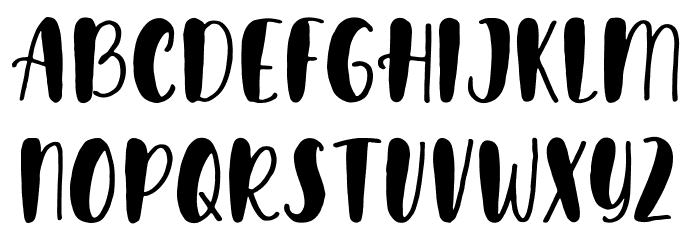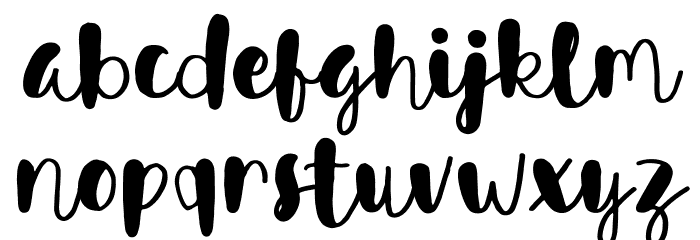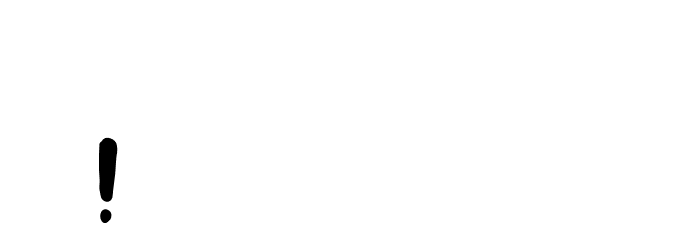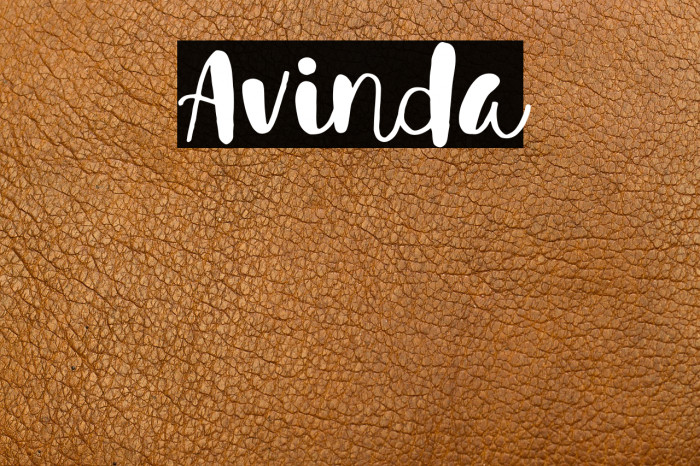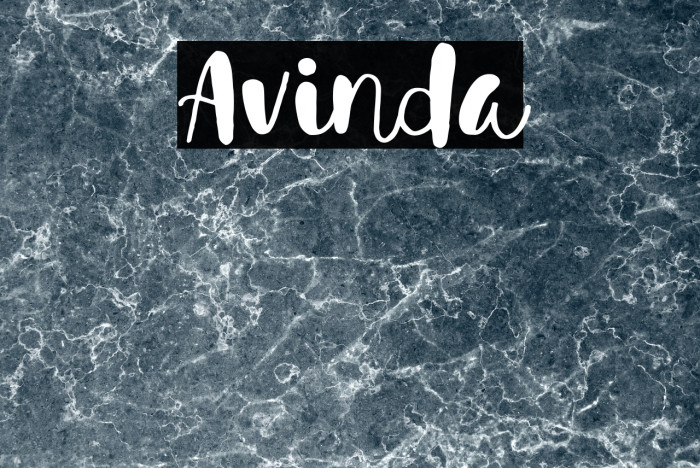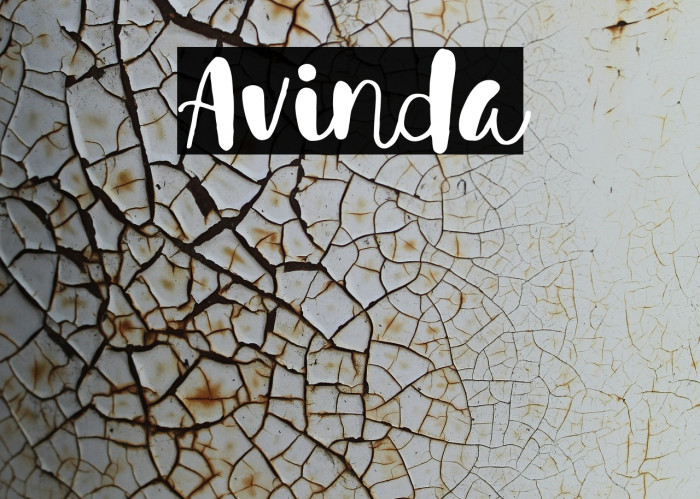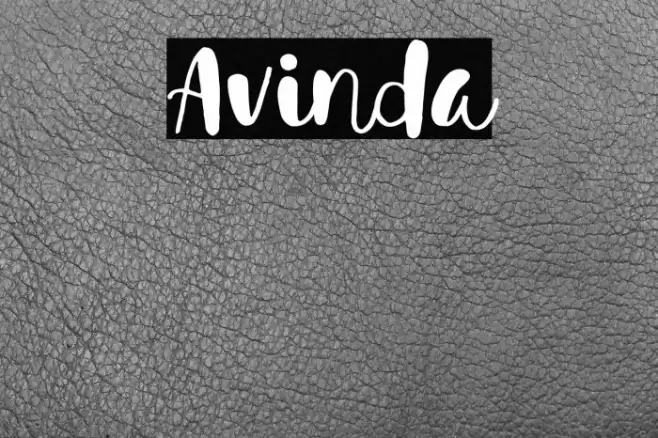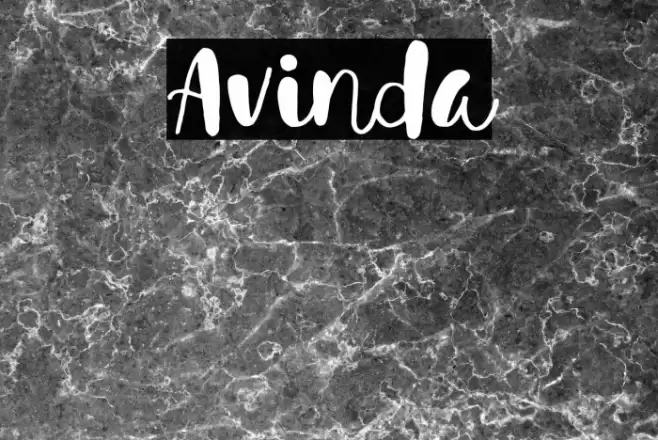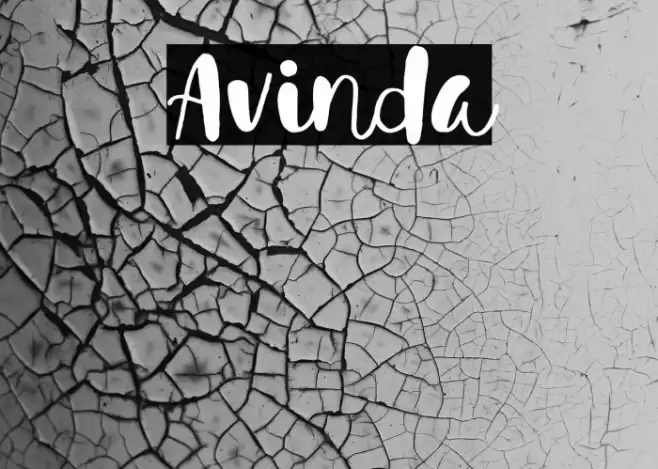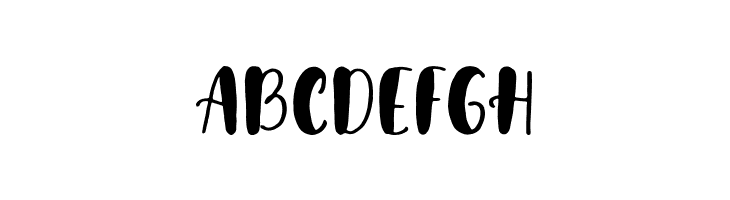
Avinda Font
This font features a bold and playful script style, characterized by its thick, flowing strokes and rounded edges. The uppercase letters are tall and slightly condensed, giving a sense of elegance and modernity. The lowercase letters maintain a consistent flow, with some characters like 'g' and 'y' having distinctive loops that add a whimsical touch. The font's overall appearance is lively and energetic, making it suitable for creative and informal designs. The exclamation mark is bold and matches the overall style, reinforcing the font's expressive nature.
A bold, playful script font with flowing strokes and rounded edges.
- Proposed Projects: Ideal for greeting cards, playful branding, children's book covers, and social media graphics.
- Category: Script
- Overall Style: Playful
- Use Case: Logos, Headlines, Invitations